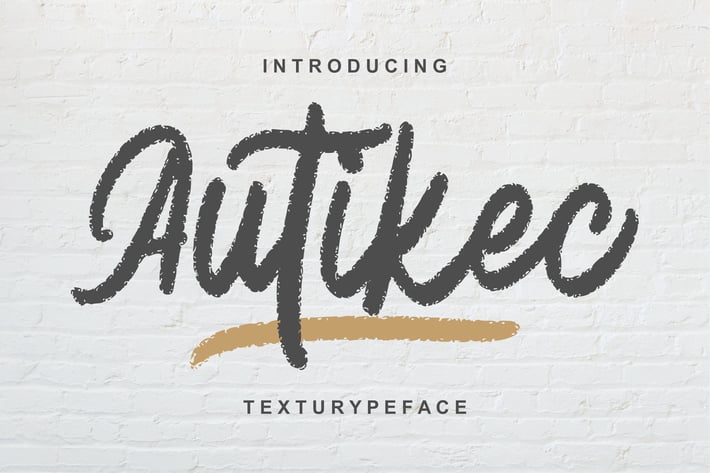
Autiec Texturype Face Font
Autiec Texturype Face Font - is a new font that is authentic and suitable for many of your visual needs, like for invitation, greeting cards, branding materials, business cards, quotes, posters, and more!